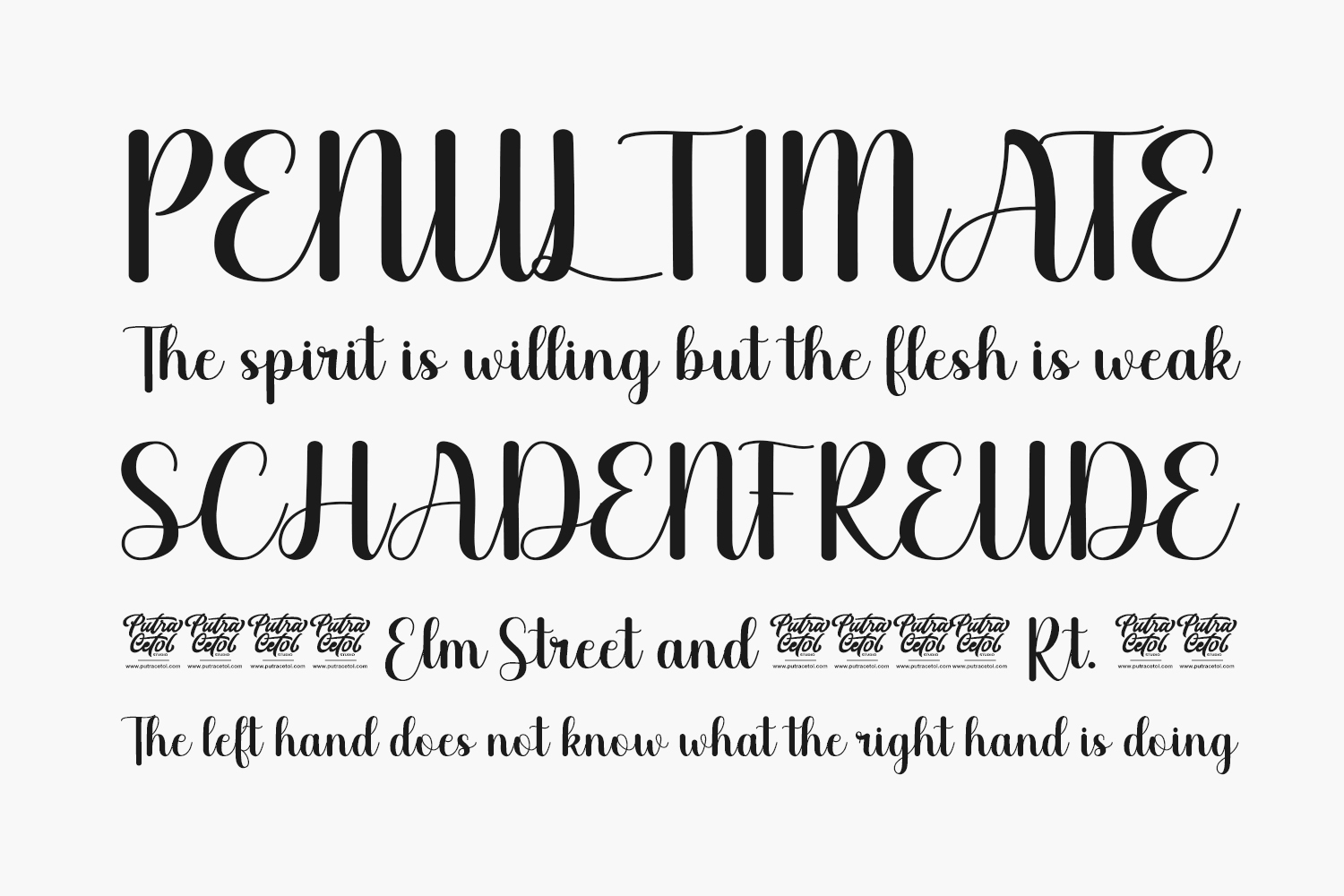
Hello Audrey Free Font is a beautiful and modern handwritten font with a unique feel and a stunning impact. It will add a luxury spark to any design project that you wish to create. Hello Audrey Free Font was designed by PutraCetol Studio is a demo and free for personal use only. Please purchase the full version for commercial use.
Designed by PutraCetol Studio